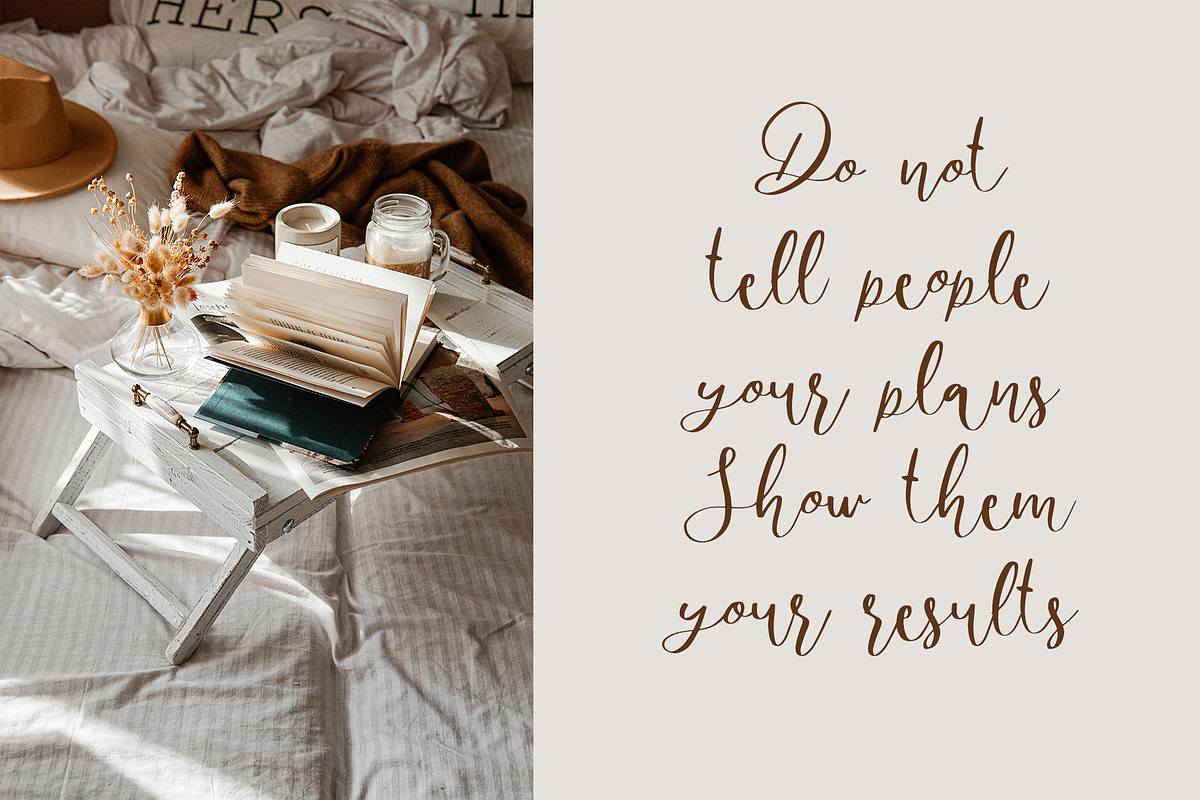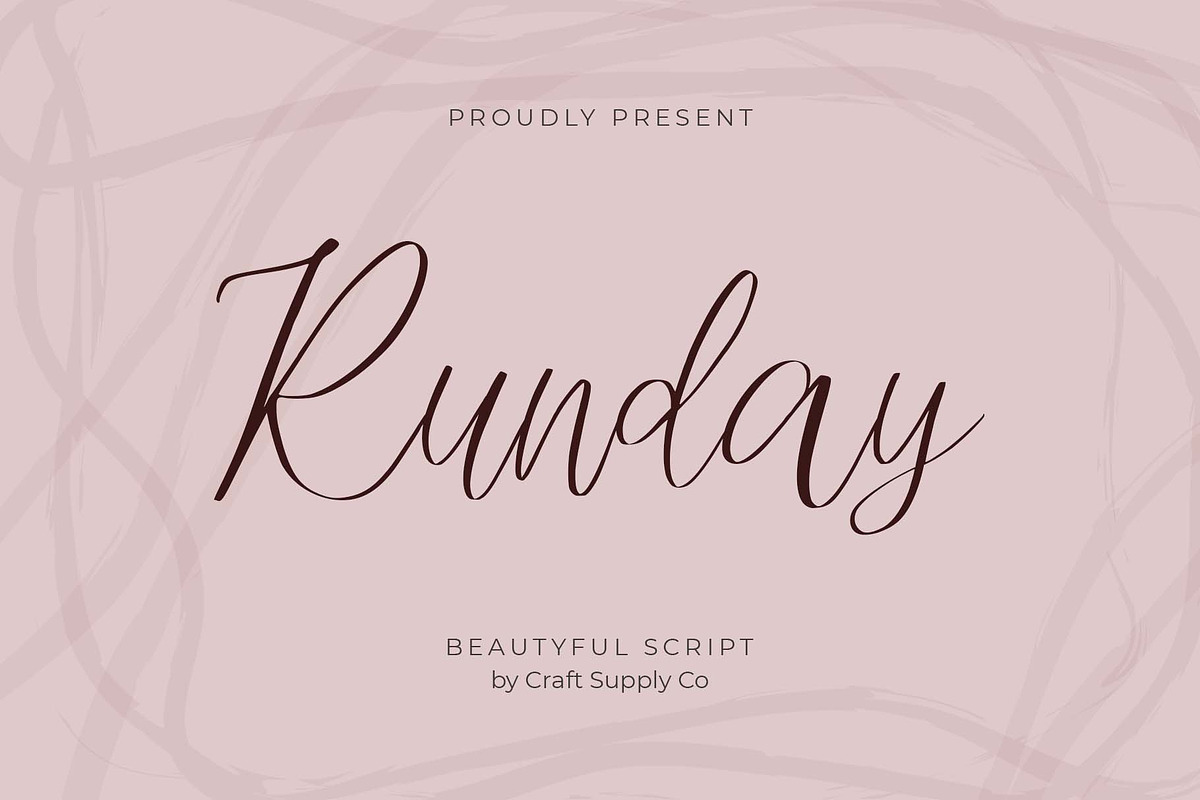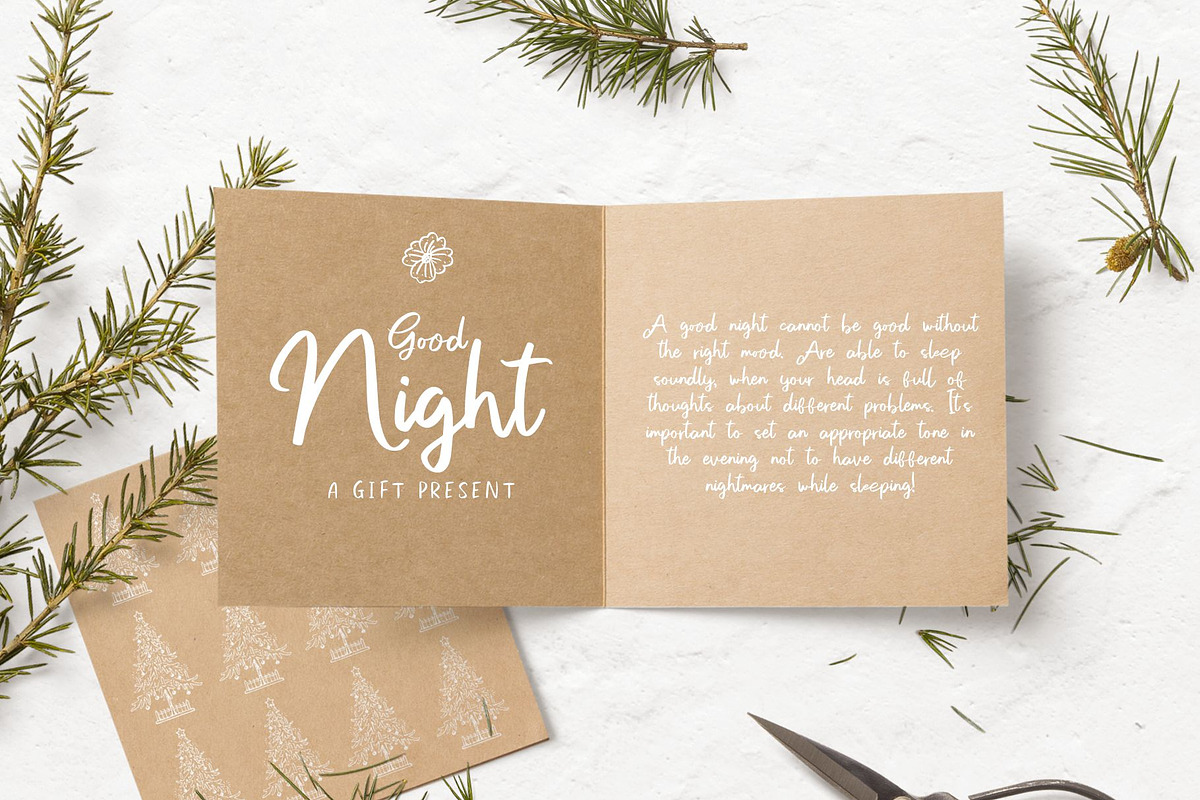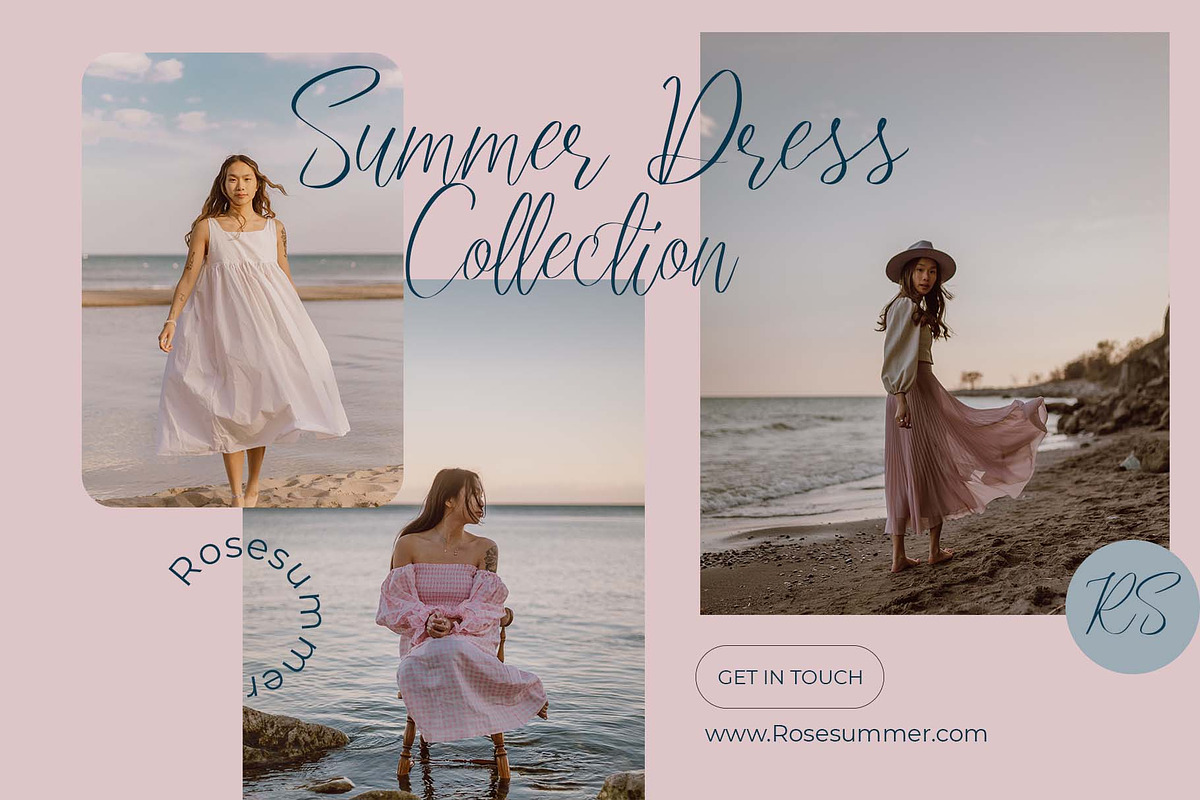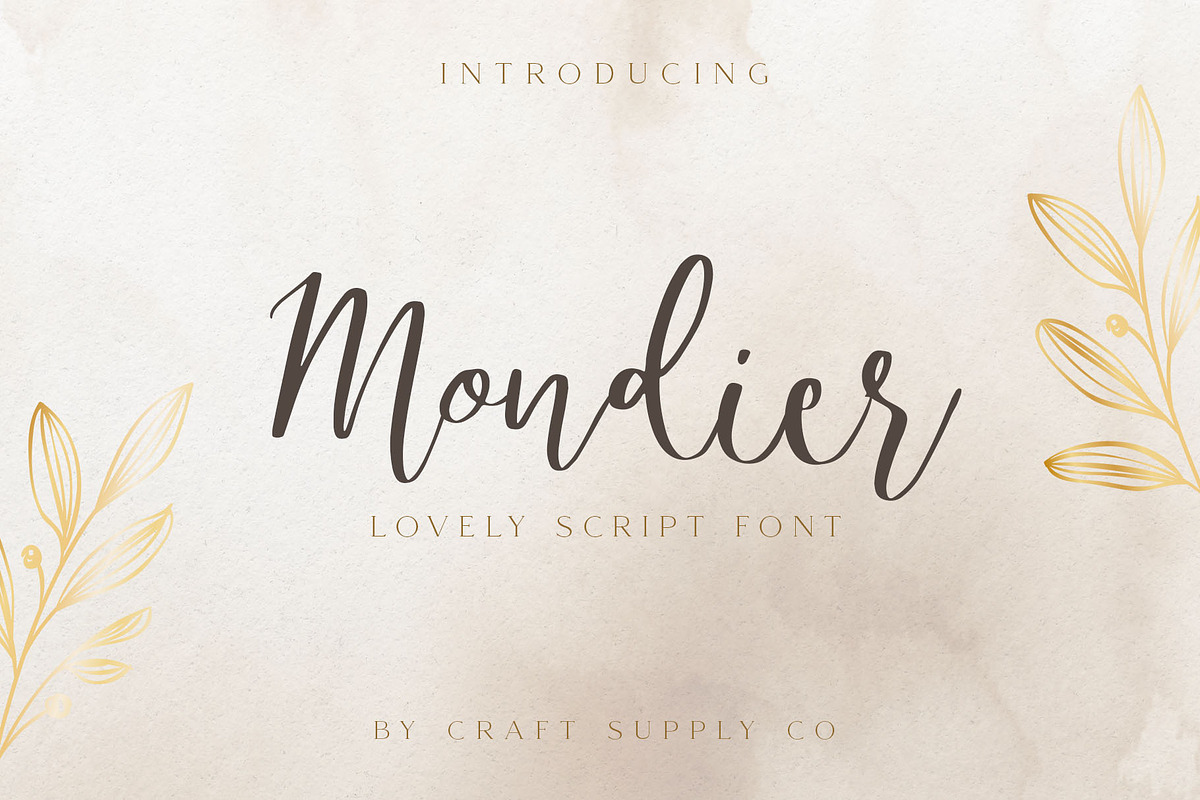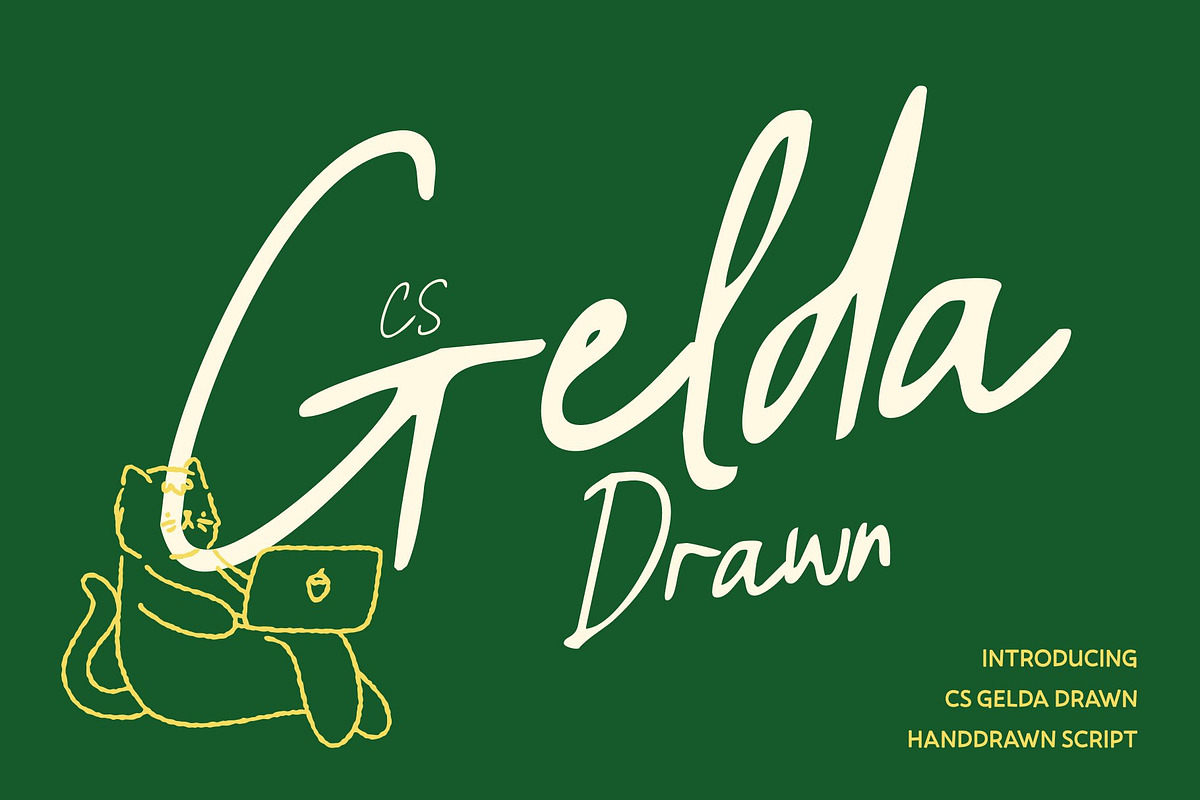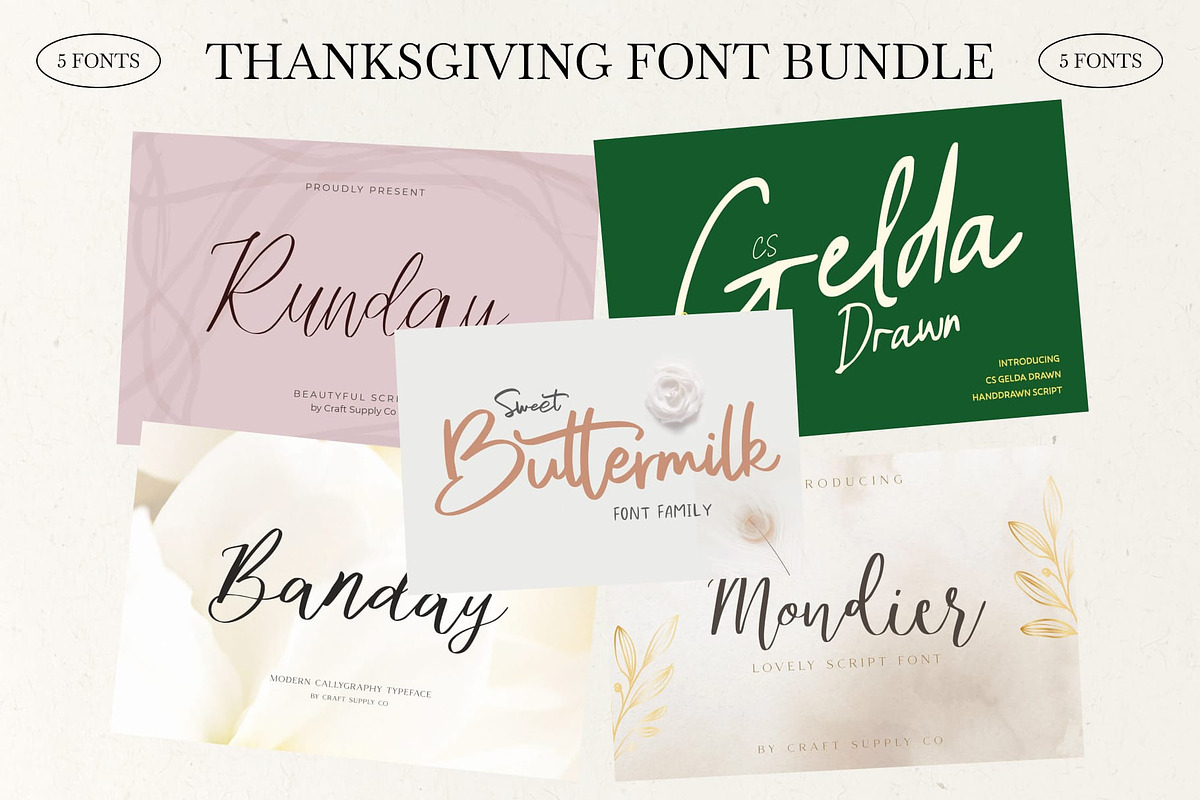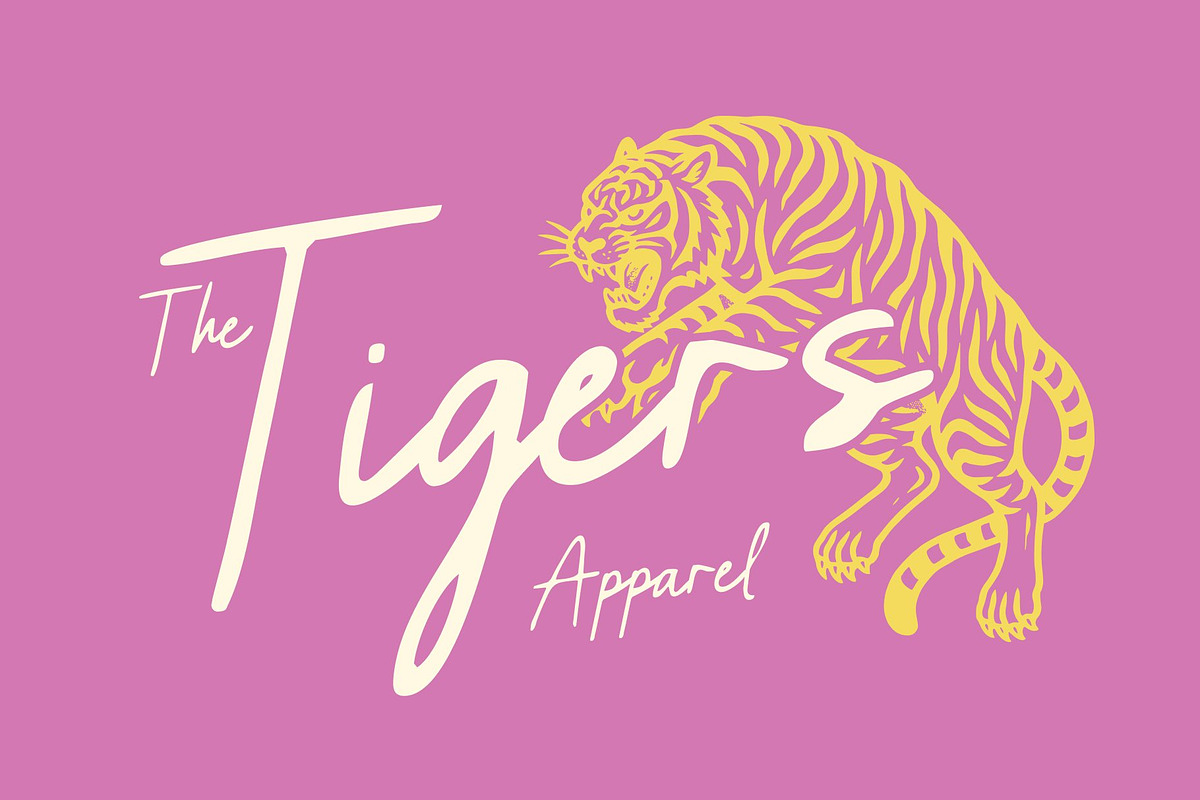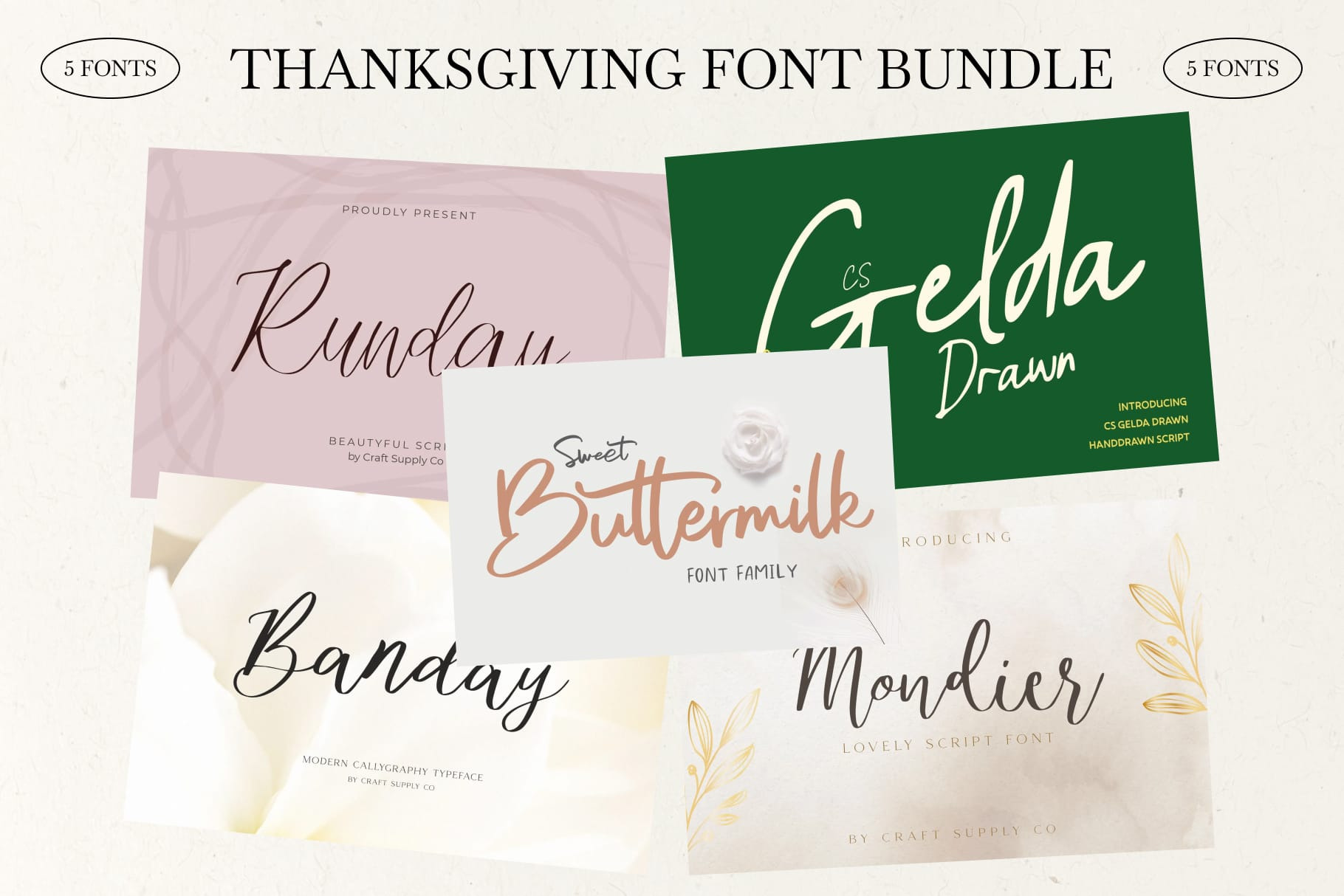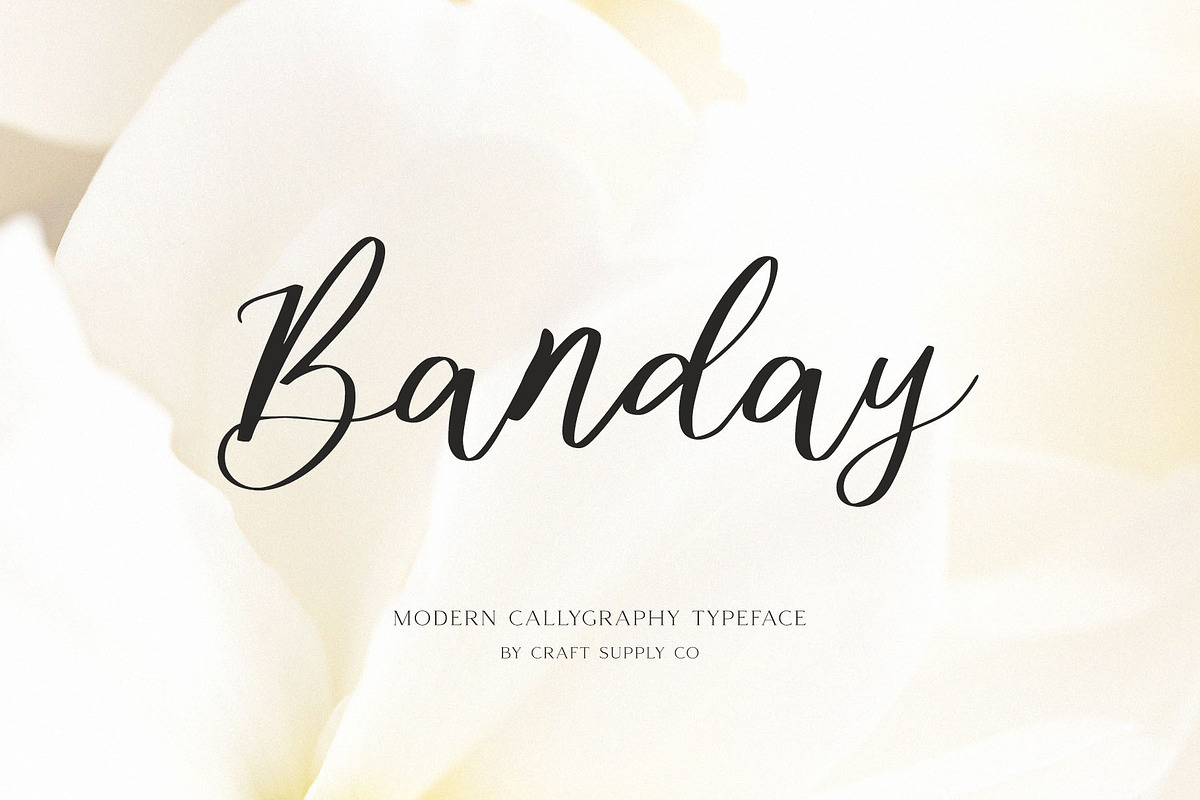
Thanksgiving Font Bundle
Thanksgiving Font Bundle brings together 15 unique fonts in one practical, ready-to-use collection. Offered for only $29, it includes premium typefaces previously valued at $100, giving designers a substantial range of lettering options without requiring a separate purchase for every project or visual direction.
The collection is built for variety. With 15 distinct fonts, you can shift the character of a headline, greeting, label, or short message while keeping your typography selection in one coordinated bundle. The included character sets cover uppercase and lowercase letters, numerals, punctuation, and symbols, supporting both display copy and essential supporting text.
Thanksgiving Font Bundle is a natural fit for seasonal creative work, including Thanksgiving invitations, dinner menus, place cards, recipe cards, event signage, promotional graphics, social posts, and packaging details. Use one font for a prominent title and another for supporting information, or explore the collection to find a more fitting voice for each piece.
The 15-font selection encourages experimentation across print and digital layouts, while the complete set of letters, numbers, punctuation, and symbols keeps everyday production practical. Thanksgiving Font Bundle delivers premium variety at an accessible price, making it a useful resource for seasonal campaigns and beyond.
15 unique fonts
Includes uppercase, lowercase, numerals, punctuation, and symbols
Banday
CS Gelda Drawn
Mondier
Runday
Sweet Buttermilk